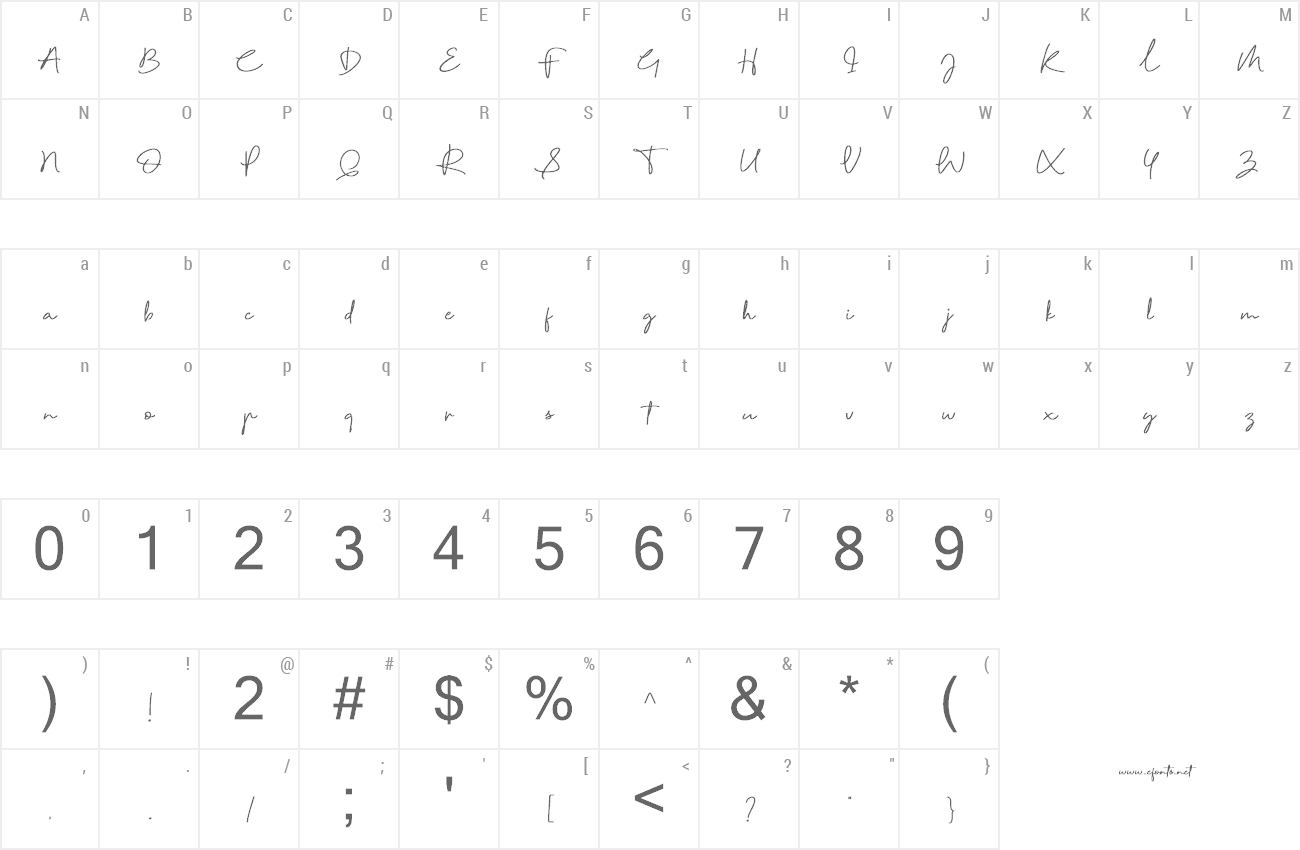
Font name: | Reinata |
Author: | Nug's Project |
The Reinata is a beautiful handwritten typeface which will give your design a handmade feeling. It comes in a script and sans version which can be combined to create an unique design in an instant. It�s perfect for headings, logos, invitations, t-shirt designs, greeting cards, posters, labels, book covers, brochures and much more! full version https://fontbundles.net/ndrienugrie/202799-reinata-font-duo This DEMO font is not contain all of its unicode glyphs, and for PERSONAL USE ONLY. Instagram @ndrienugrie Paypal account for donation : ndrienugrie@gmail.com |